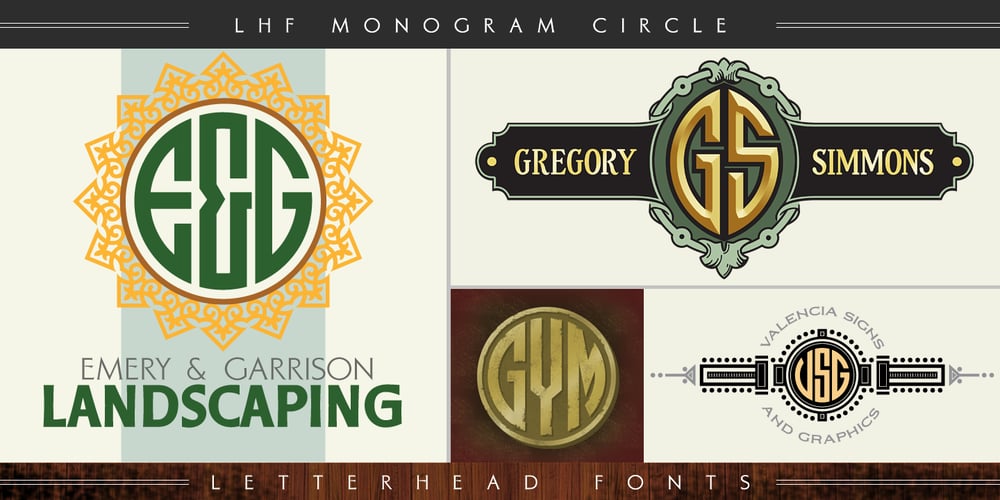
LHF Monogram Circle Font Family was designed by John Studden and published by Letterhead Fonts. LHF Monogram Circle contains 4 styles and family package options. Set includes 4 fonts that work together to create quick and professional monogram designs. Inspired by early 1900’s artist J.M. Bergling. LHF Monogram Circle 1 includes the entire alphabet for the left side of the monogram. LHF Monogram Circle 2 contains the alphabet for the center. LHF Monogram Circle 3 contains the alphabet for the right side of the monogram. LHF Monogram Circle Borders contains a variety of borders and backgrounds to use with the letters. Use the fonts together to create a personalized design. Printable keyguide included.